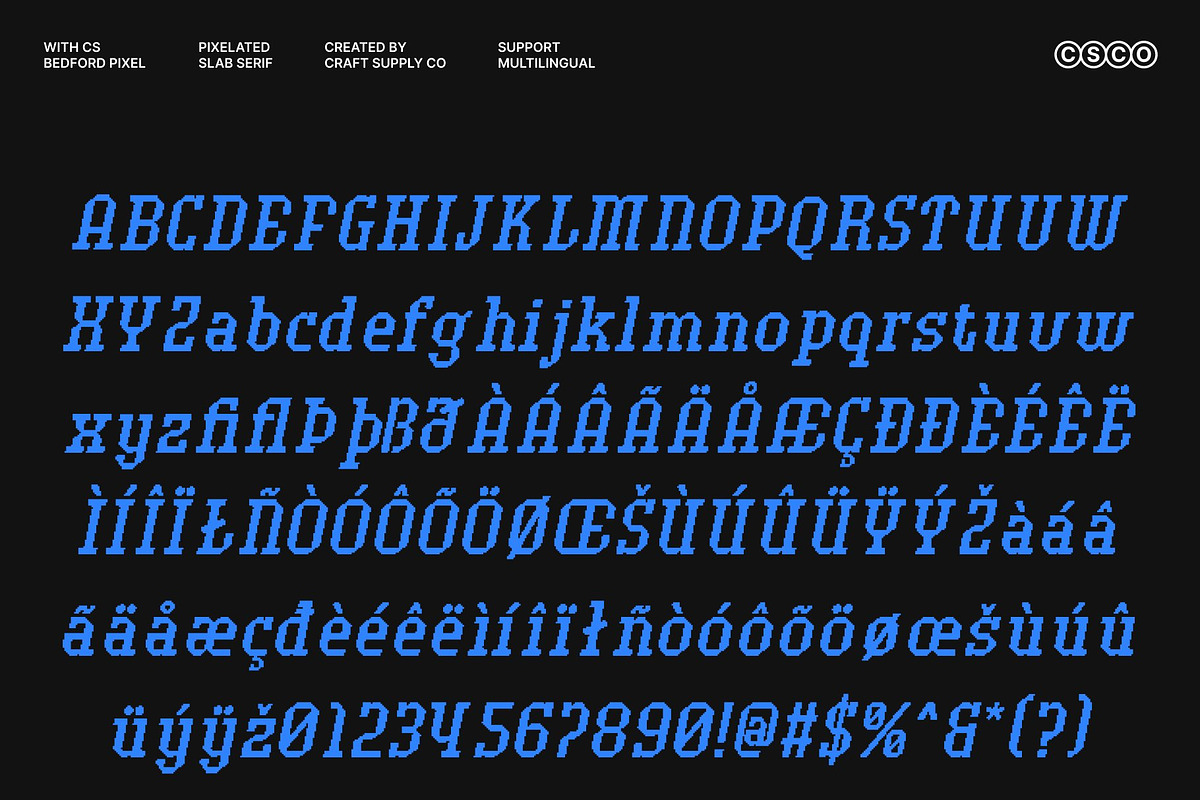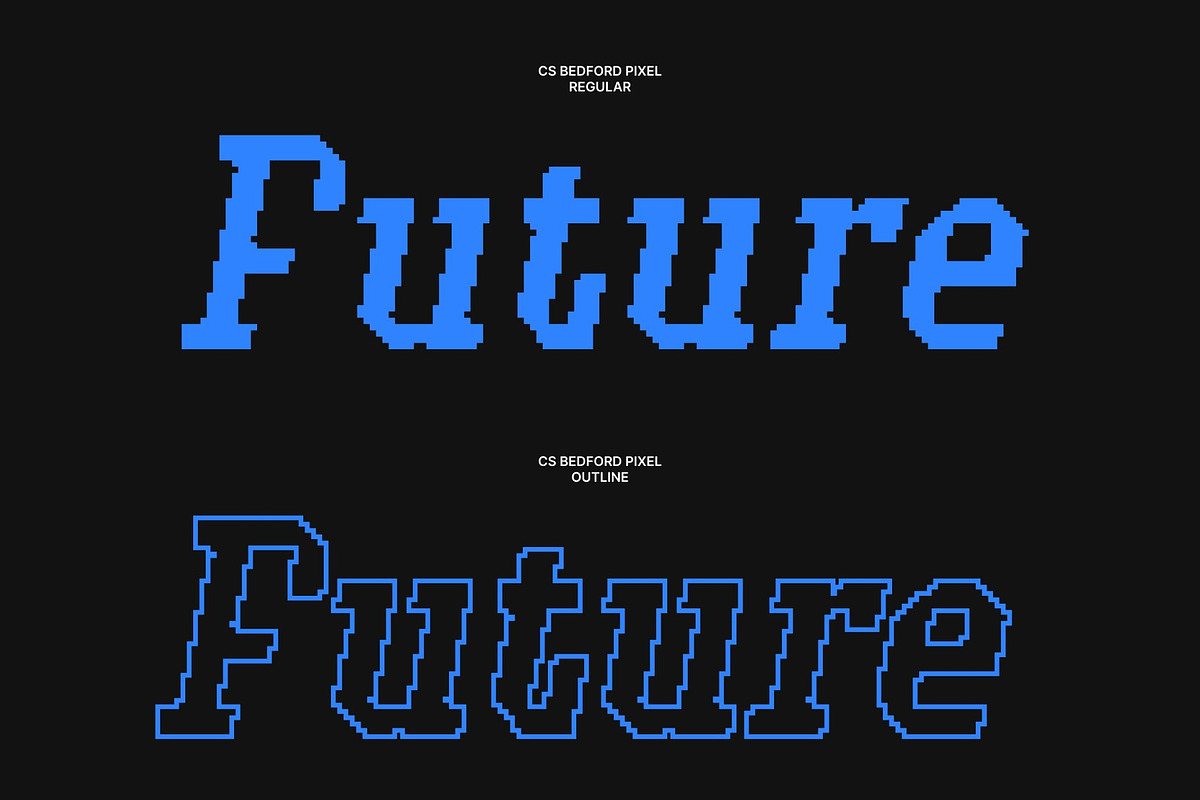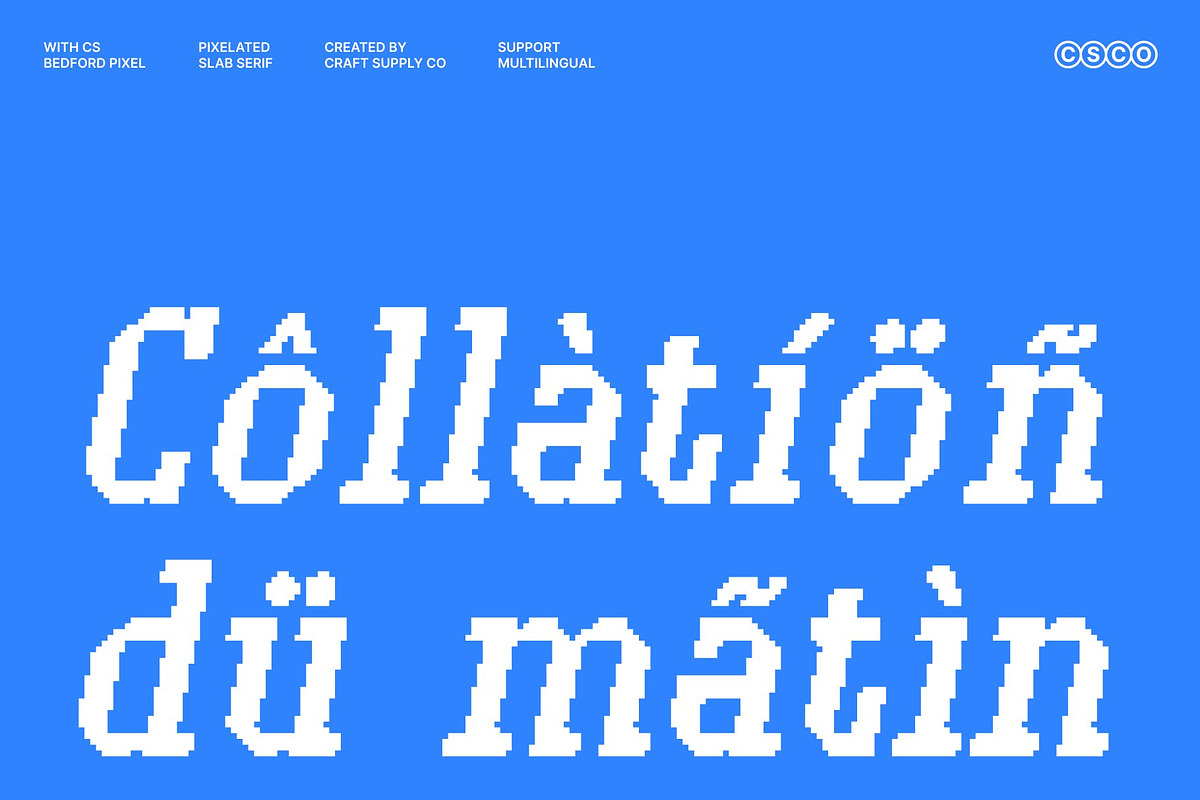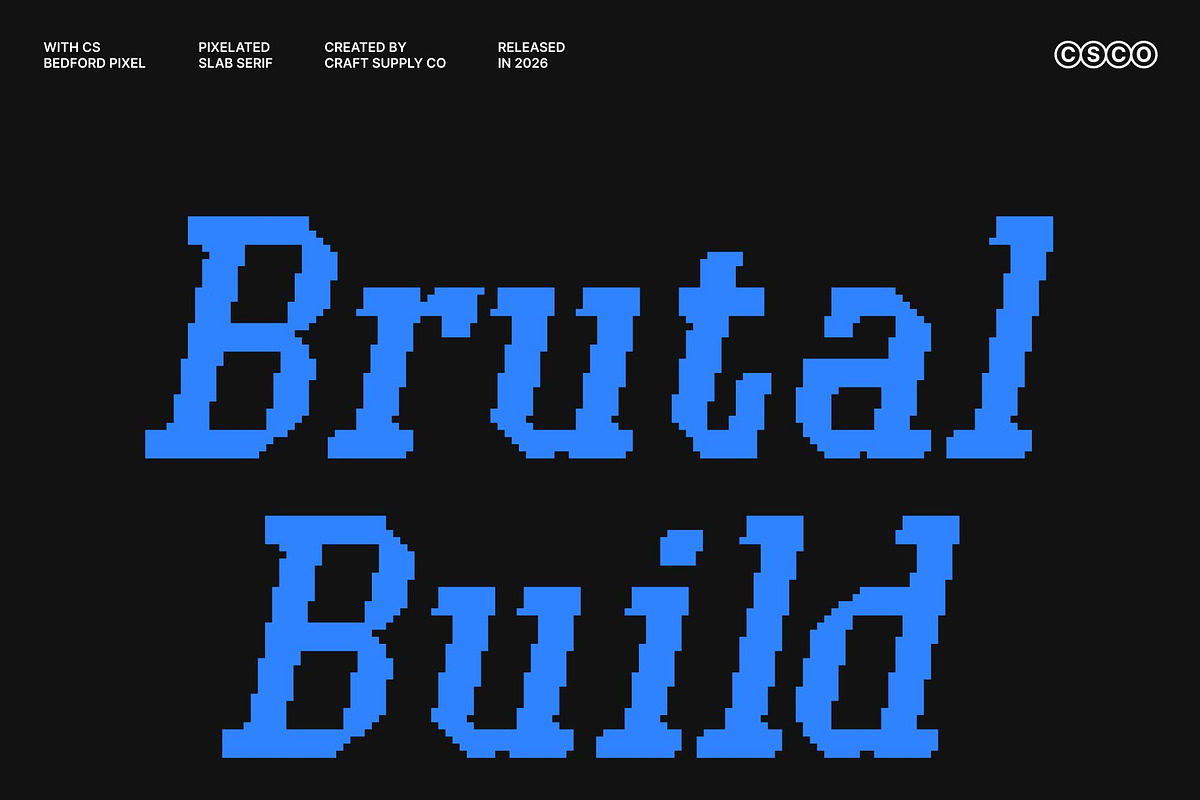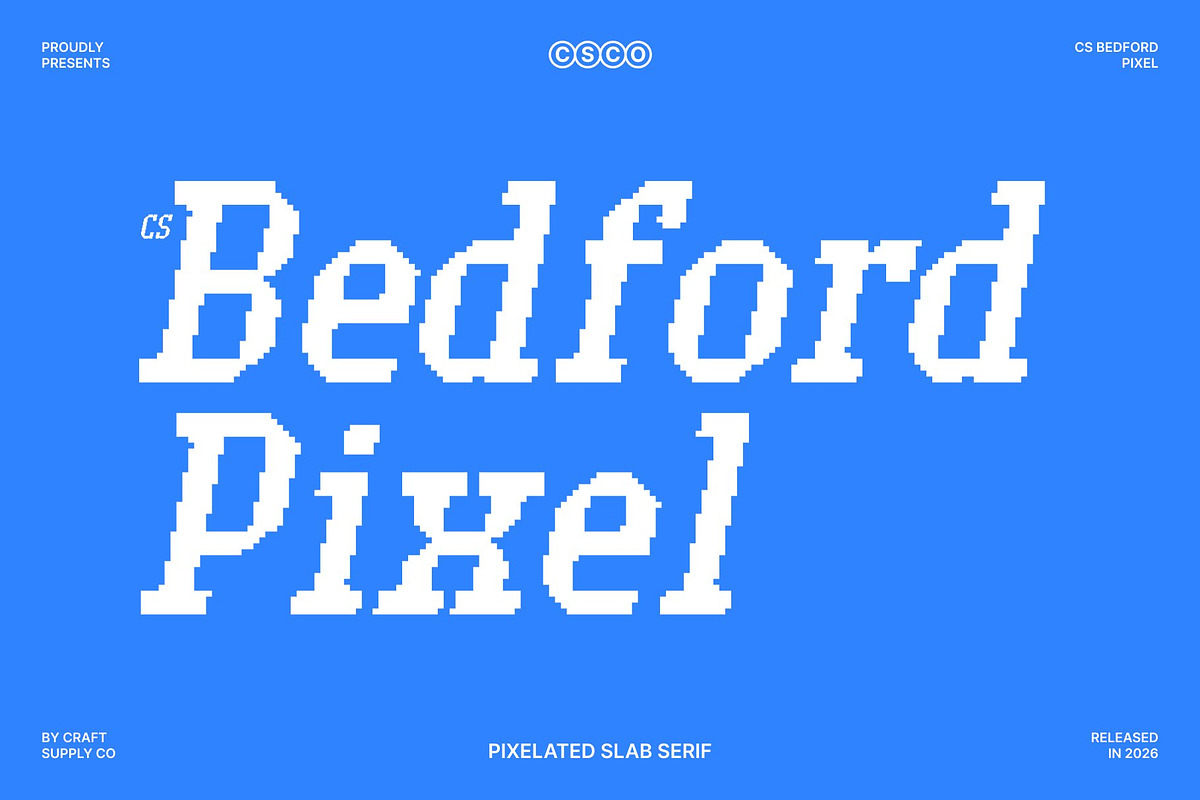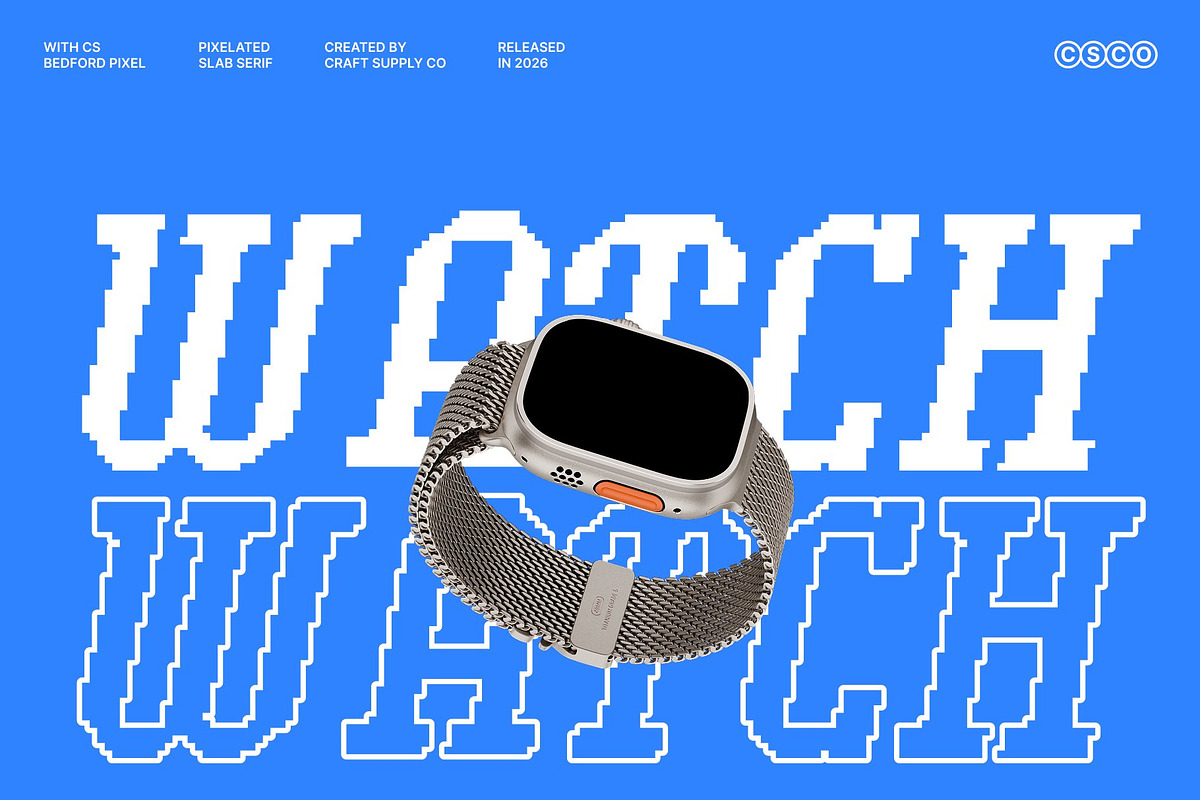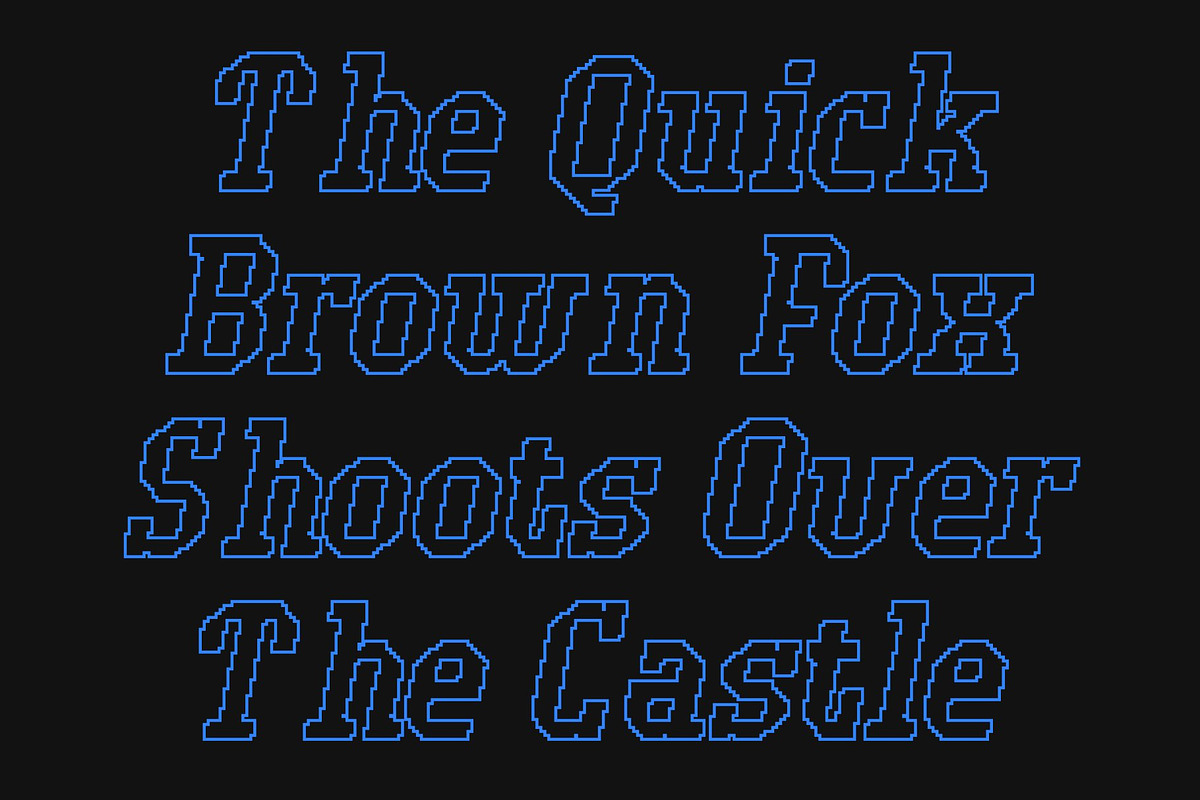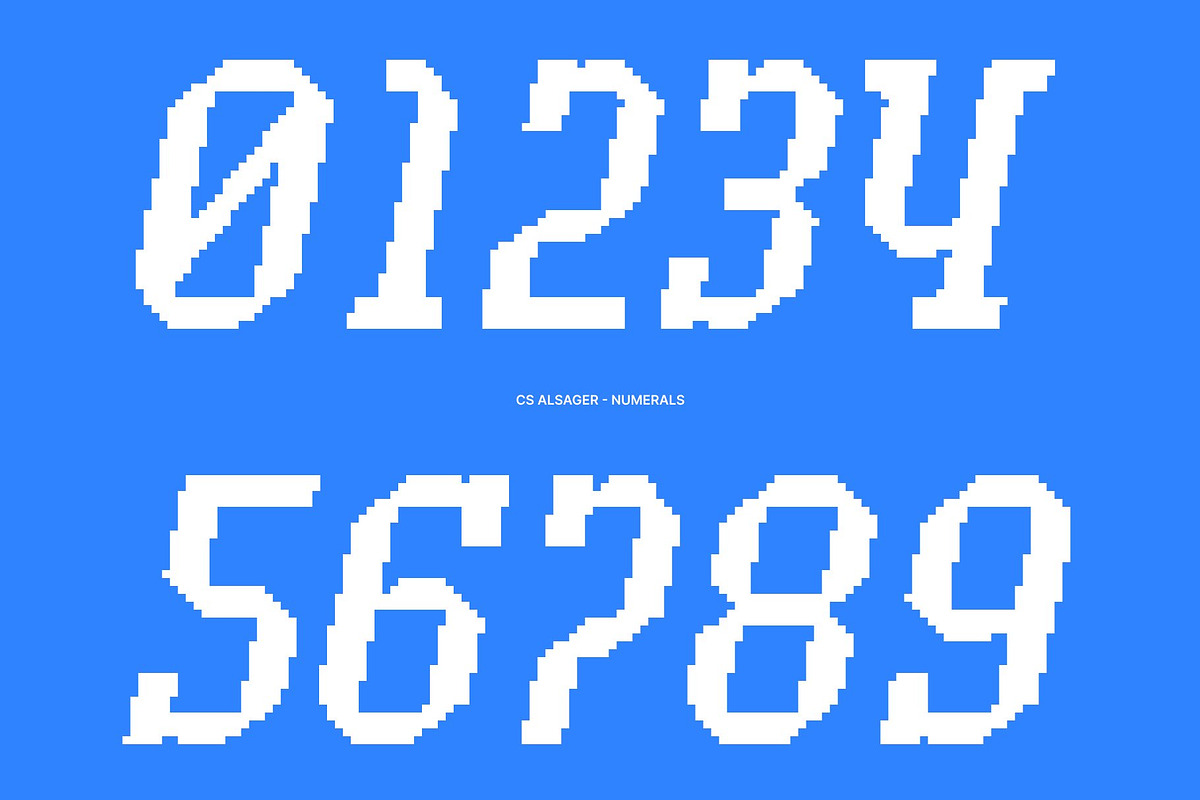
CS Bedford Pixel
CS Bedford Pixel – Futuristic Slab Serif with Industrial Digital Power
Futuristic Slab Serif in Pixel Form This is a modern slab serif font that merges futuristic vision with bold industrial character, enhanced by a distinctive pixel construction. Its strong, assertive letterforms are built from structured, blocky shapes that evoke a digital, high-tech atmosphere. The pixel styling adds a sharp, modern edge while reinforcing a confident and authoritative presence suited for impactful visual communication.
Strong Headlines with Retro-Digital Impact Designed to dominate attention, this font performs exceptionally well in headlines, posters, advertisements, billboards, and logos. The sturdy slab serif structure ensures excellent readability at large sizes, while the pixel details introduce a unique digital texture. This combination makes every word feel powerful, precise, and visually striking, perfect for bold statements in modern layouts.
Industrial Strength with 8-Bit Precision The industrial influence of this font is emphasized through its solid construction and architectural feel, now reimagined with an old-digital, pixel-inspired aesthetic. The slab serifs add weight and stability, while the pixel grid brings a subtle retro-futuristic vibe reminiscent of early digital screens.
Versatile for Modern and Futuristic Branding This font adapts seamlessly across print and digital media, from branding systems and editorial design to signage and digital graphics. Its futuristic, industrial pixel style makes it ideal for tech branding, modern campaigns, retro-digital themes, and bold visual identities that demand strength, clarity, and a forward-looking edge.